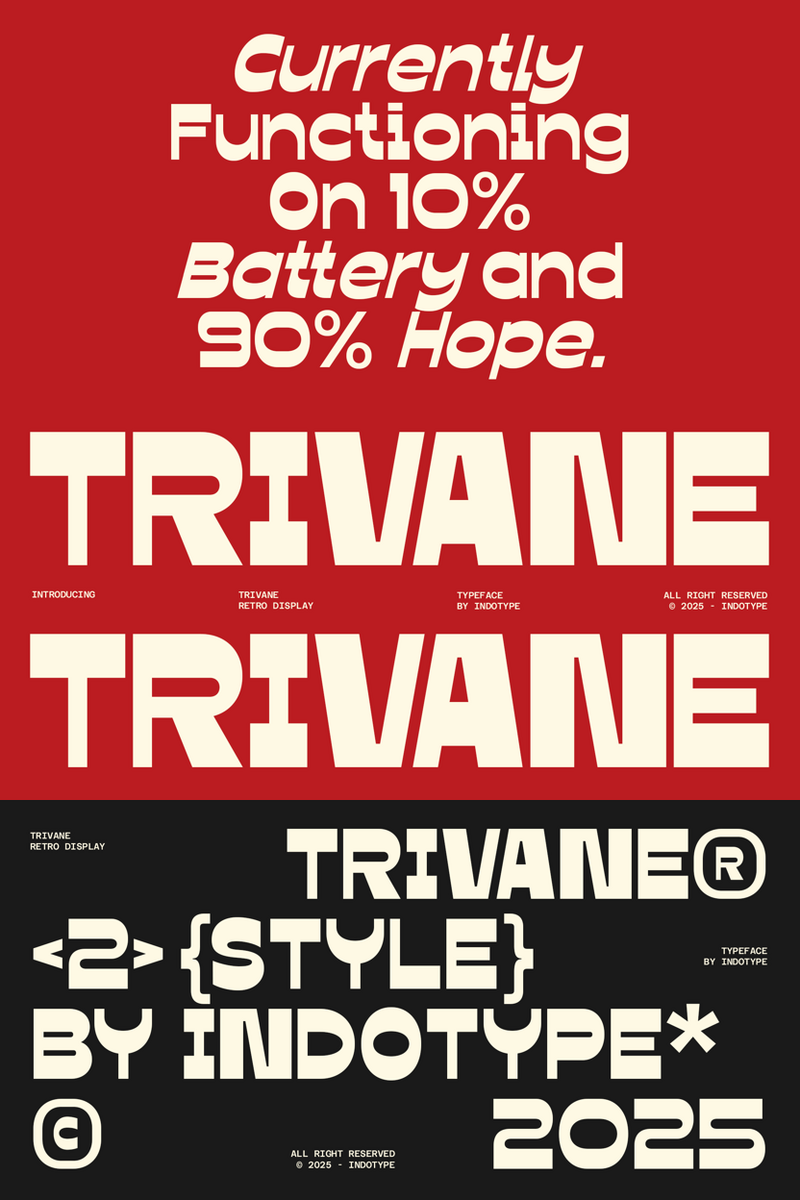
Hey Lifestyle Creator: Unlocking Your Blog's Next-Level Vibe with IT Trivane's Tech-Inspired Font – How Modern Innovation Creates Unforgettable Visuals for Everything from Stylish Travel Guides to Engaging Recipe Features and Dynamic Social Graphics.
Ever feel like your amazing lifestyle content—those vibrant travel stories, the delicious new recipes, or your latest sustainable fashion finds—isn't quite getting the visual punch it deserves on your blog? You've got the words, the photos, the vision, but sometimes the typography just feels... vanilla. You want sleek, you want modern, you want that subtle hint of tech-savvy innovation without sacrificing warmth or approachability. That's where IT Trivane font steps in.
Imagine a font that effortlessly marries the precision of cutting-edge technology with the organic flow of human connection. That’s the unique magic of IT Trivane. It’s not just another typeface; it’s a design partner for the digital age, crafted specifically for the lifestyle blogger who's always a step ahead. With its clean lines, intelligent curves, and contemporary feel, IT Trivane exudes a personality that's both polished and pioneering. It whispers "future-forward" without ever shouting "over-complicated."
Picture this scenario: You're launching an exciting new series about smart home tech or sustainable living, and you want your blog's aesthetic to immediately convey innovation and trust. Your current font feels a bit too traditional, or maybe too whimsical, clashing with your content's sleek vibe. The solution? IT Trivane. Its distinct character instantly elevates your headlines, making them pop with an energetic yet refined appeal. Suddenly, your readers aren't just reading your content; they're experiencing it, feeling the intentionality behind every word. This isn't just a design choice; it's a strategic move to strengthen your brand's visual identity.
So, why does IT Trivane stand out from the crowd? It’s all about the benefits it brings to your lifestyle blog:
- Tech-Inspired Clarity: Each character is engineered for optimal on-screen readability, ensuring your content looks crisp and inviting on any device, from a desktop monitor to a smartphone. Say goodbye to squished text and hello to effortless browsing.
- Unmistakable Brand Identity: IT Trivane helps you forge a memorable and consistent visual voice. It’s professional enough for serious product reviews, yet adaptable for lighthearted personal anecdotes, creating a cohesive look that screams "you."
- Dynamic Versatility: From bold, commanding blog post titles that grab attention, to elegant body text that keeps readers engaged, and even snappy captions for your gorgeous editorial layouts—IT Trivane shines everywhere. Think sophisticated recipe cards, chic travel itineraries, or clean, readable DIY instructions.
- Modern Appeal: It brings a fresh, contemporary edge to your overall blog design, positioning your brand as innovative and in tune with current trends, appealing directly to a design-conscious audience.
This isn't just about making your blog look good; it's about making your blog feel right. IT Trivane is ideal for blog post headlines, subheadings, elegant quotes, infographic text, and even those shareable social media graphics where clarity and style are paramount. It’s the perfect modern typeface for showcasing everything from minimalist fashion lookbooks to intricate tech reviews or urban exploration guides.
IT Trivane: Modern Narratives, Elevated.